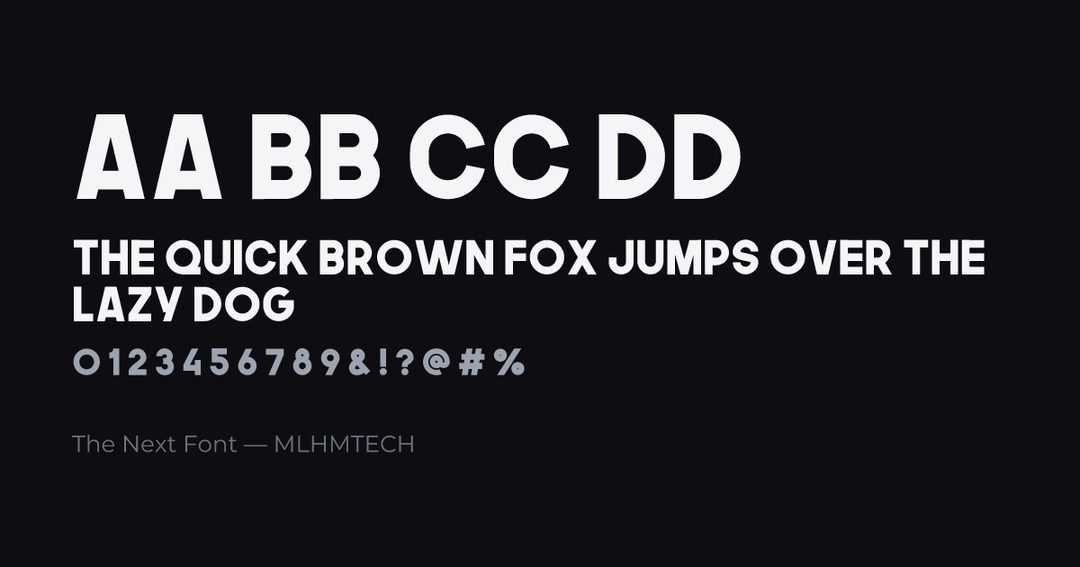
The Next Font
The Next Font is a modern, handpicked typeface that adds a unique touch to any design project. Perfect for branding, logos, and creative work.
The Next Font is a carefully selected typeface from our handpicked collection. Its clean lines and contemporary style make it versatile for various design applications, from logos and branding to editorial layouts and digital graphics.